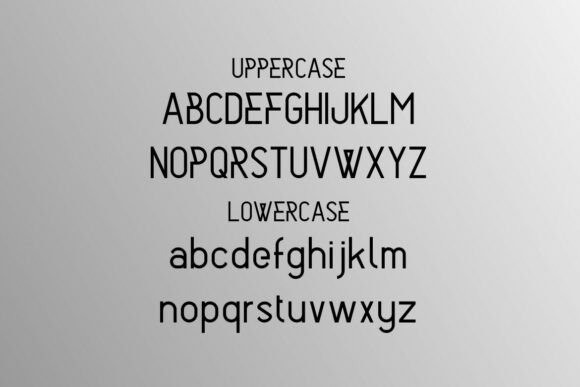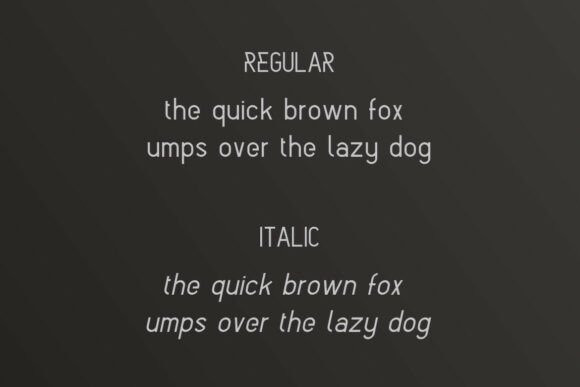
Profote Font
Profote Font is a sleek and modern sans serif font designed to bring structure, elegance, and readability to your design work. With clean lines, balanced proportions, and a neutral tone, Profote is ideal for branding, corporate identity, editorial layouts, websites, packaging, and presentations that require a professional and refined touch.